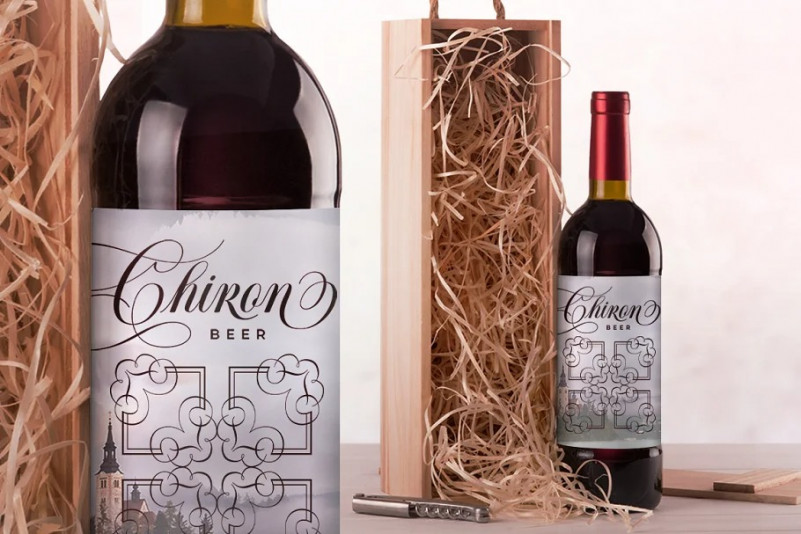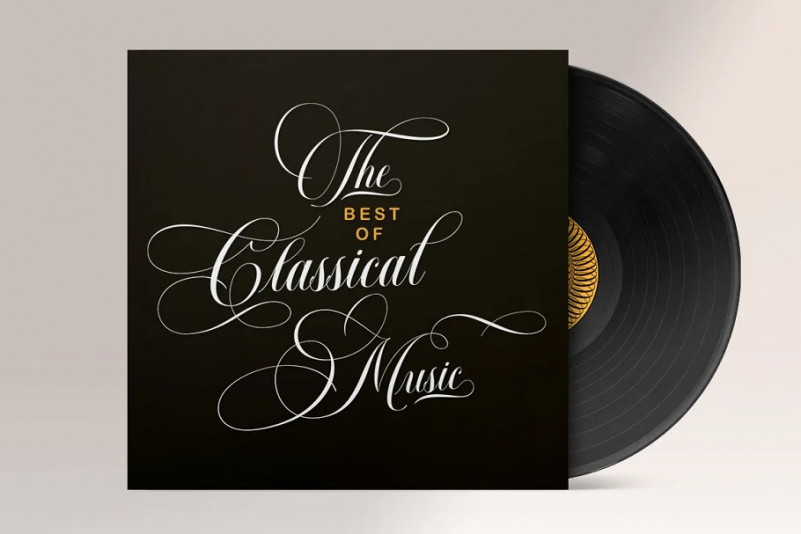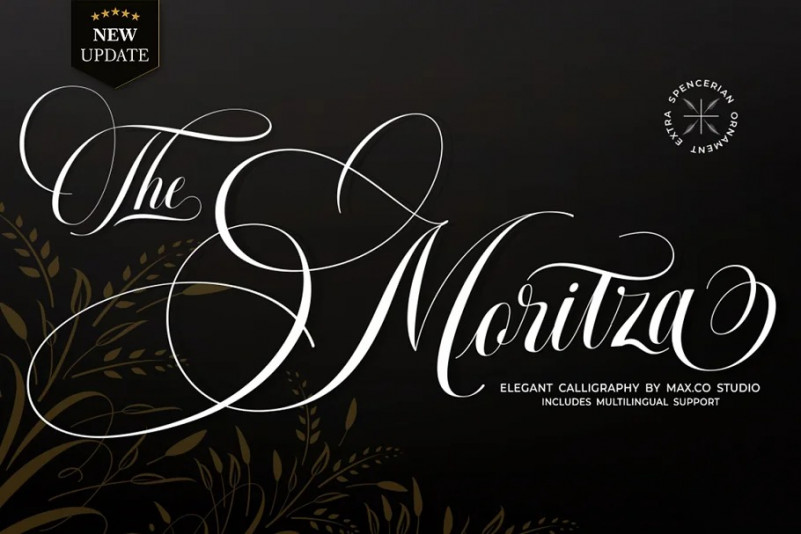
Moritza Font
Moritza Script Font is a calligraphy script font that comes with lovely alternates character. a mixture of from copperplate calligraphy with handlettering style. Designed to convey style elegance. Moritza is attractive like a smooth, clean, feminine, sensual, glamorous, simple and highly legible typeface. Its classic style is perfect to be applied in any type of formal pieces such invitations, labels, menus, Logos, fashion, make up, stationery, letterpress, romantic novels, magazines, books, greeting / wedding cards, packaging, labels.
Moritza features 840+ glyphs and 495+ alternative characters. including multiple language support. With OpenType features with stylistic alternates, ligatures and swash characters, that allows you to mix and match pairs of letters to fit your design, and also a touch of ornament makes this font look elegant.